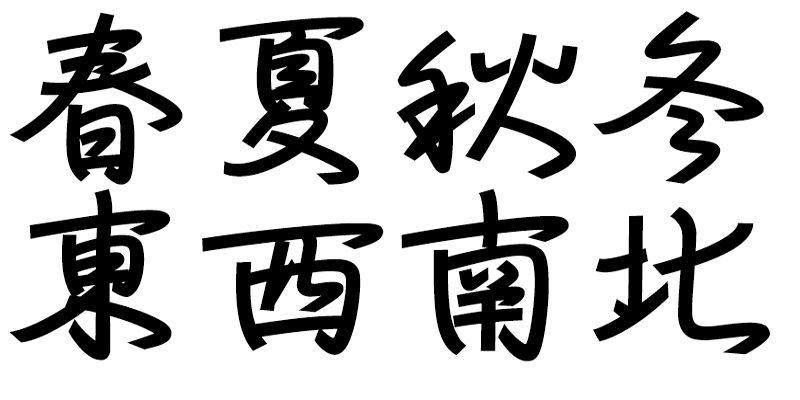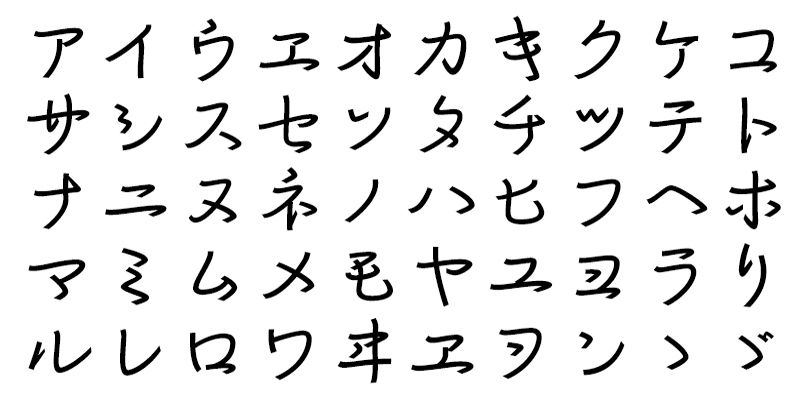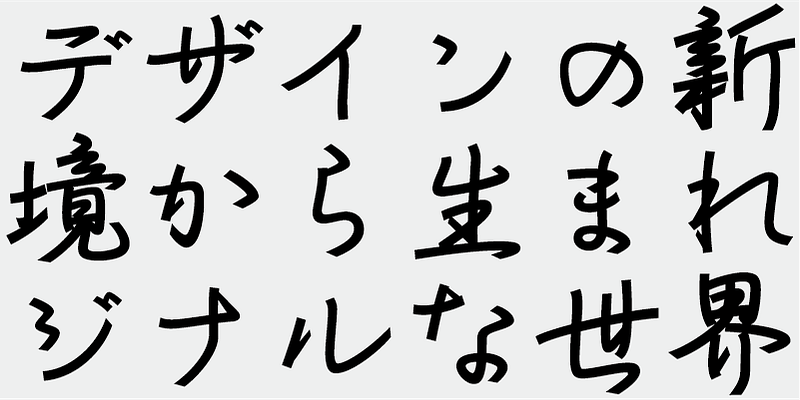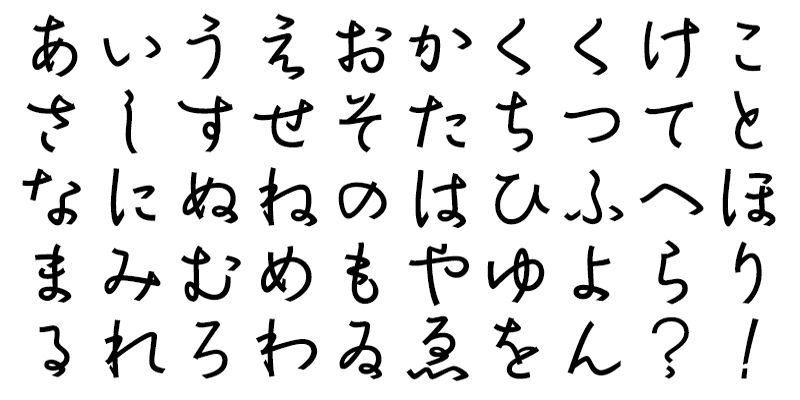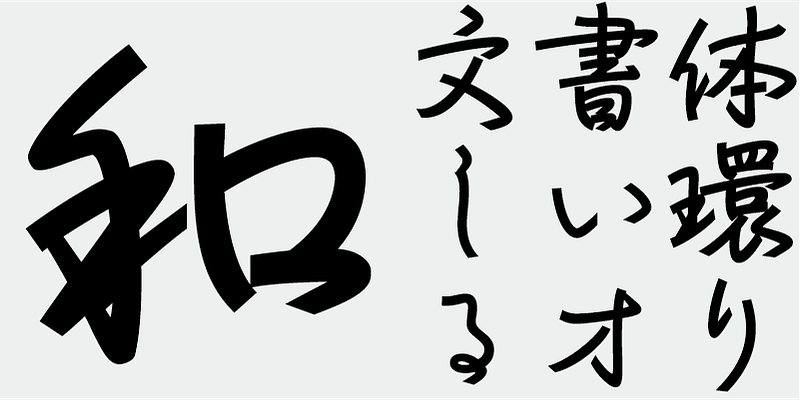
Like floating through mountains, rivers, sea, sky, and nature, Ryusen-aki is intended to conjure the image of rapidly flowing water. It will give text the feeling of a letter written in a flowing hand. This is the second lightest of all the four fonts in the Ryusen typeface family.